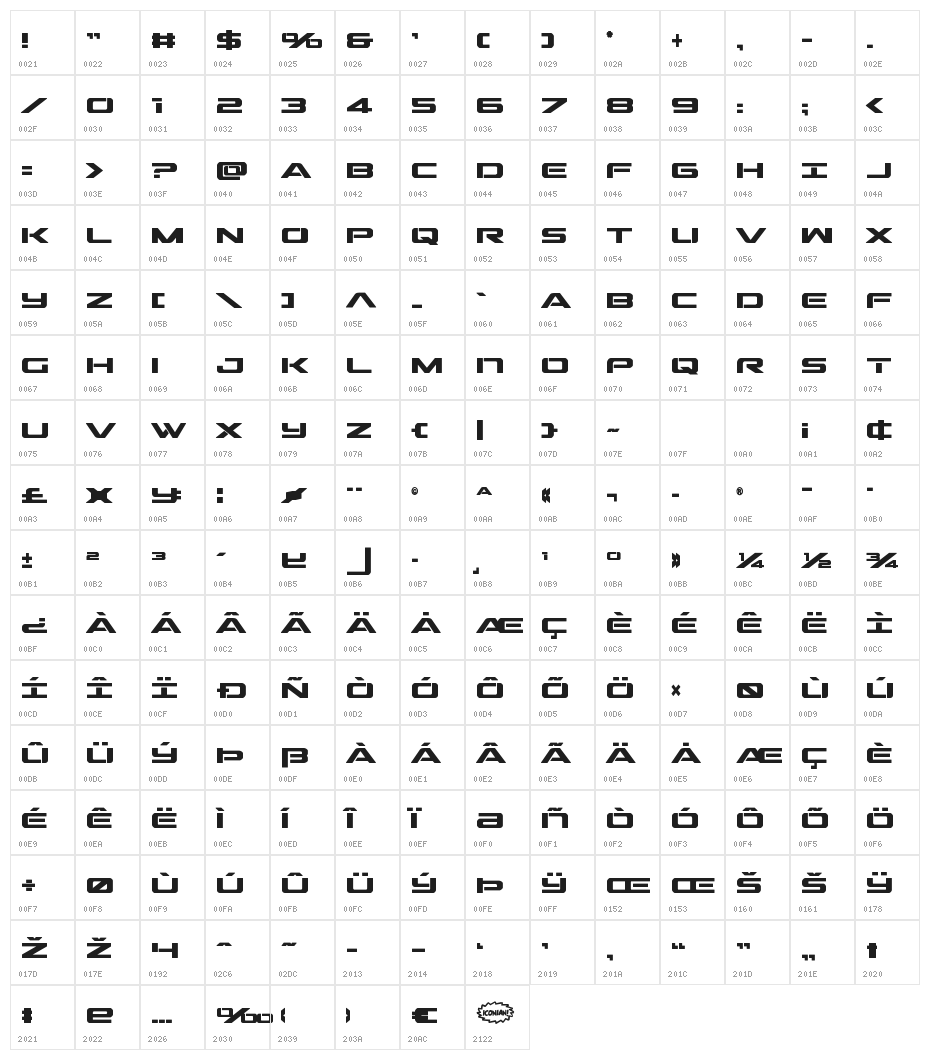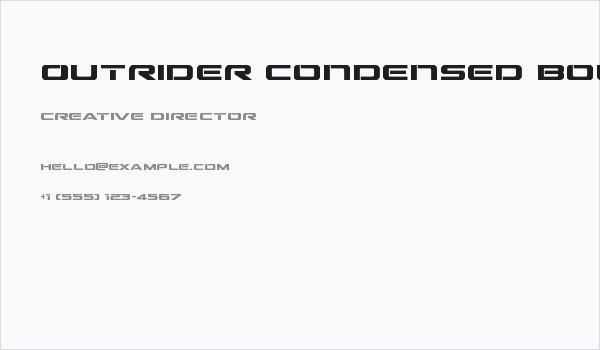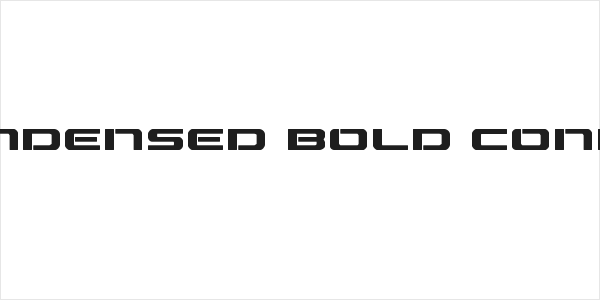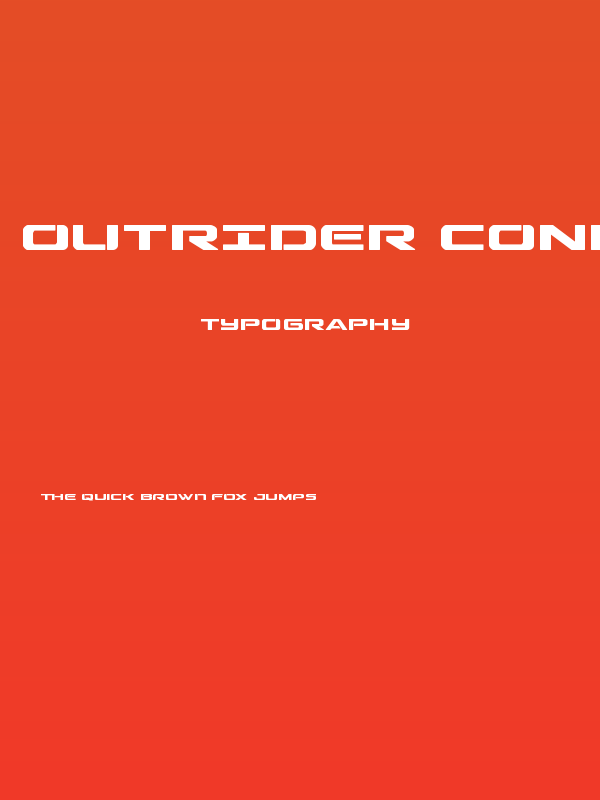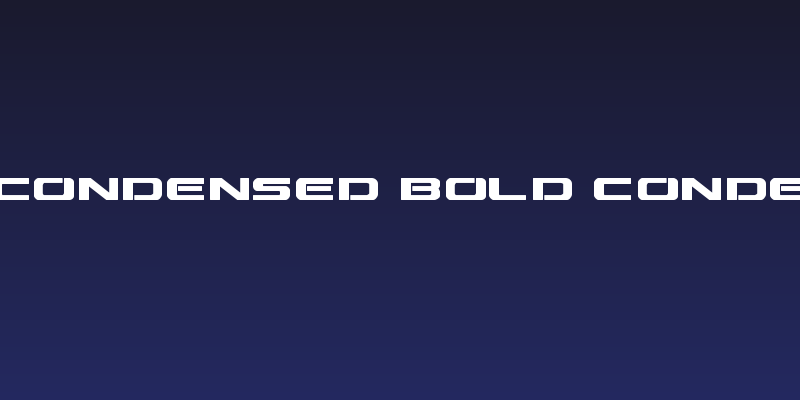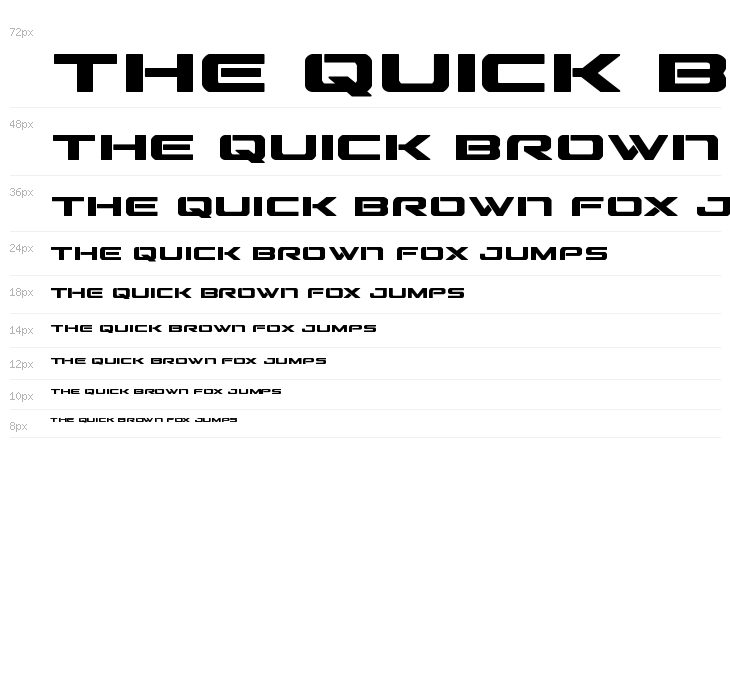
Outrider Condensed Bold Font
Outrider Condensed Bold Description
This font features a bold and condensed style, characterized by its strong geometric shapes and sharp angles. The uppercase letters are uniform in height, creating a cohesive and structured appearance. The lowercase letters maintain the same boldness, ensuring readability and impact. Numbers and special characters follow the same design principles, offering a consistent look across all elements. The font's condensed nature allows for efficient use of space, making it ideal for situations where space is limited but impact is necessary. Its modern and futuristic aesthetic makes it suitable for tech-related projects or branding that requires a strong visual presence.
| Proposed Projects | Ideal for technology branding, futuristic designs, posters, and headlines. |